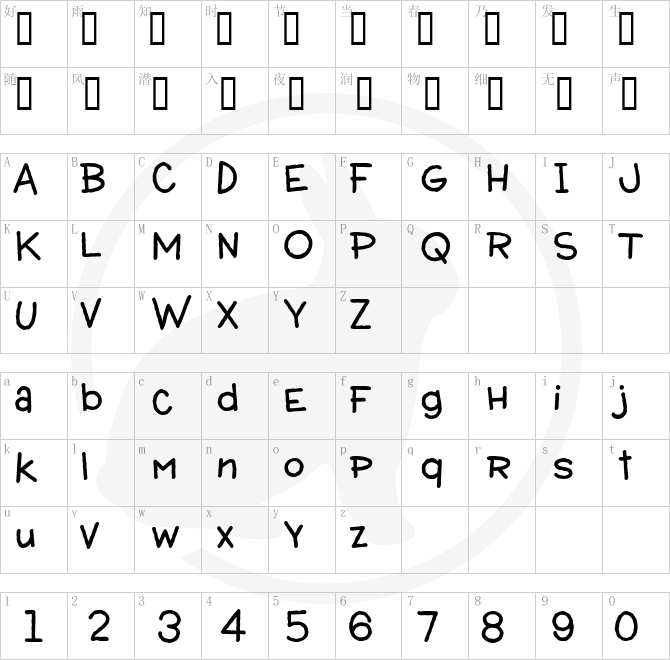
- Font Name:Wacky Action BTN Wavy
Wacky-Action-BTN-Wavy.ttf is a very beautiful artistic font, Wacky-Action-BTN-Wavy.ttf is widely used in the design and printing of various books and pictures,Wacky-Action-BTN-Wavy.ttf has a strong visual impact,Wacky-Action-BTN-Wavy.ttf is a commonly used font in newspapers, magazines and books, and is used in posters, e-commerce Poster design, store design, logo design, font design and other fields.Wacky-Action-BTN-Wavy.